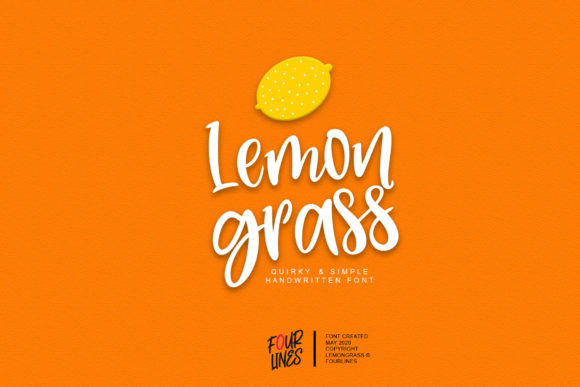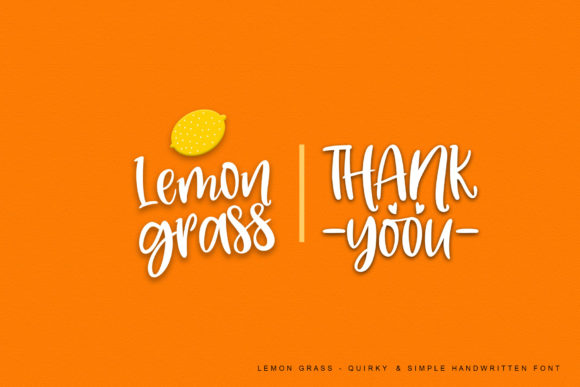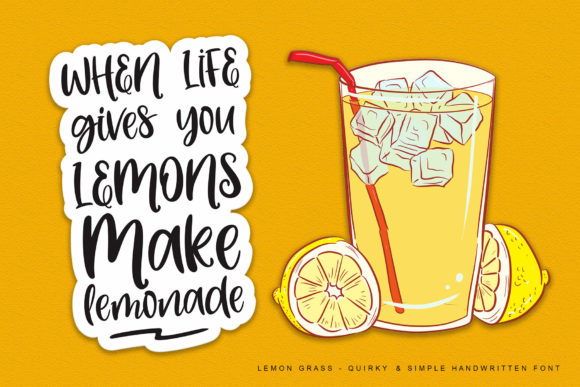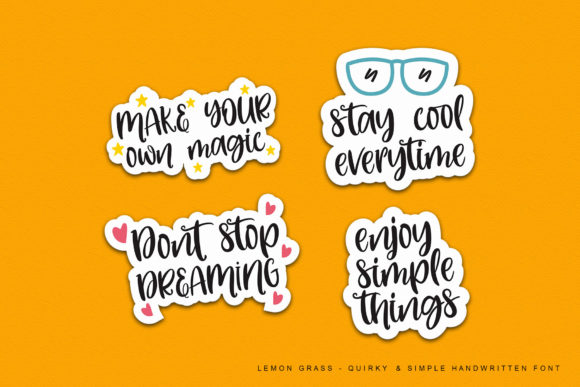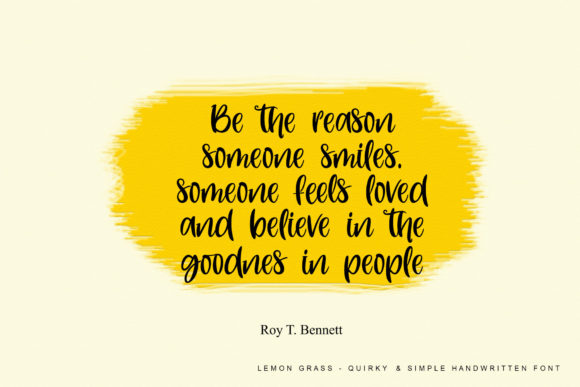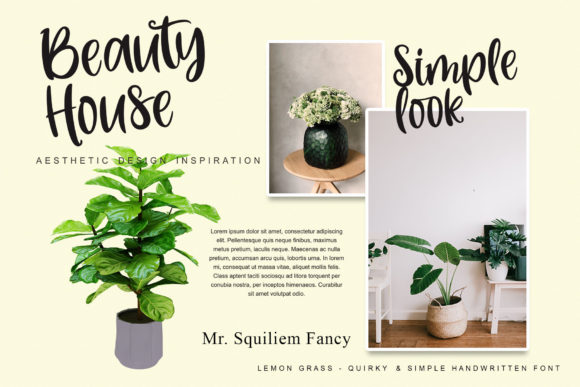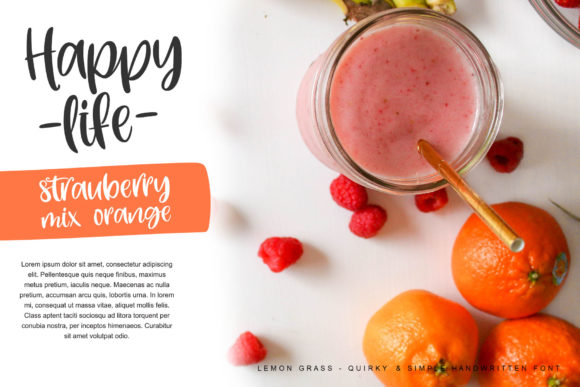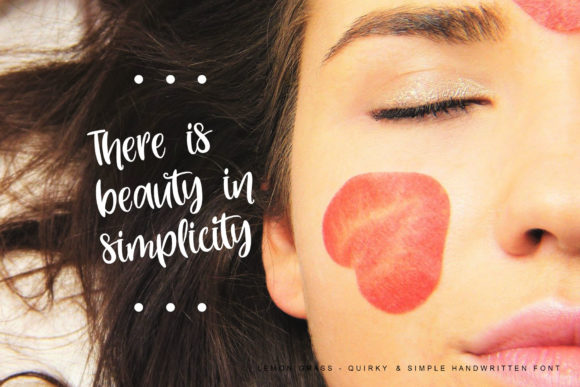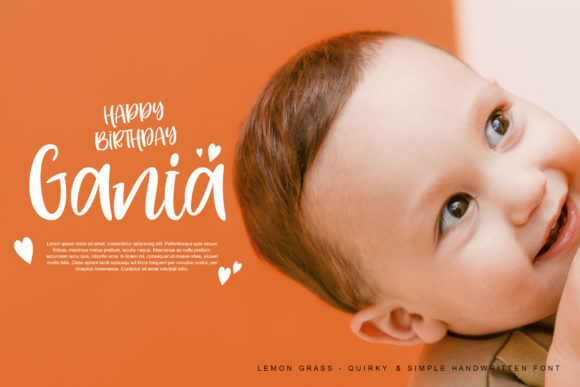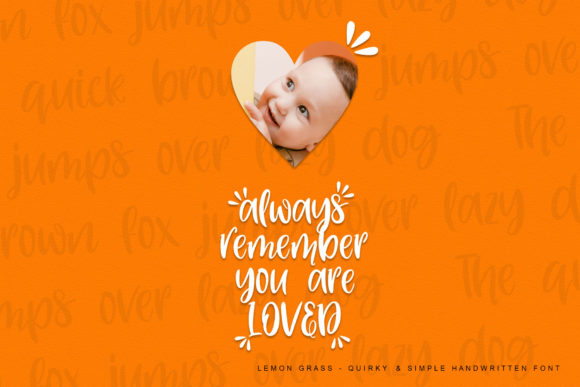
Lemon Grass Font
About Lemon Grass Font
Lemon Grass is a quirky and beautiful handwritten font. It features a cheerful feel that will elevate a wide range of design projects to the highest level, be it branding, headings, wedding designs, invitations, signatures, logos, labels, and much more!